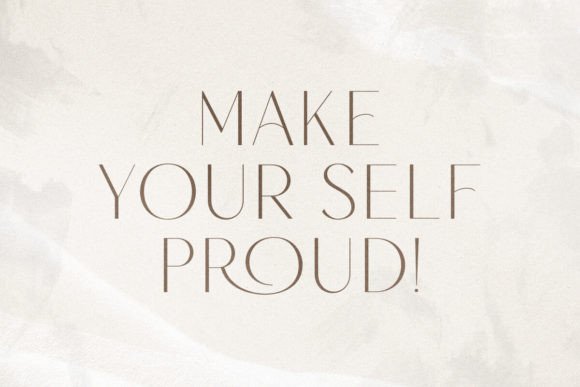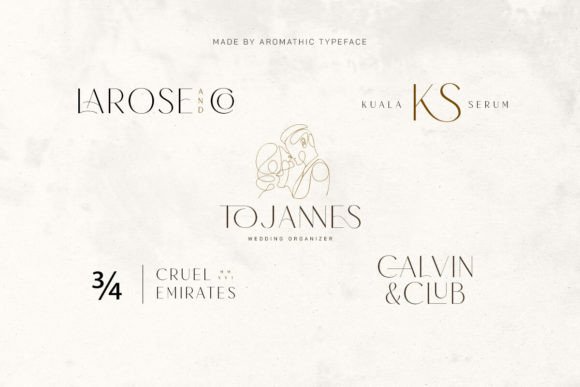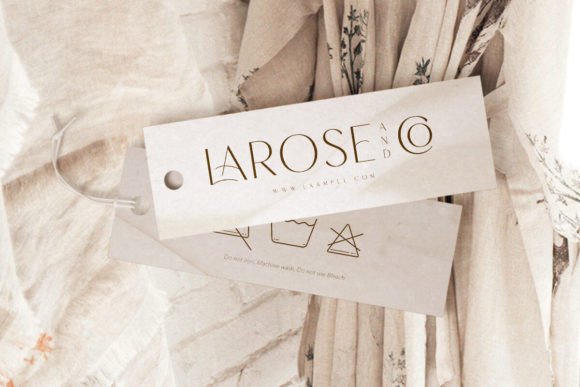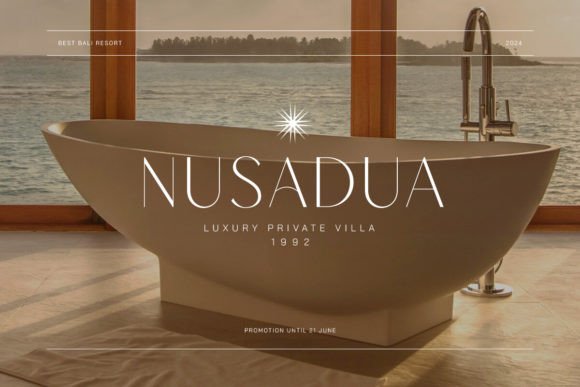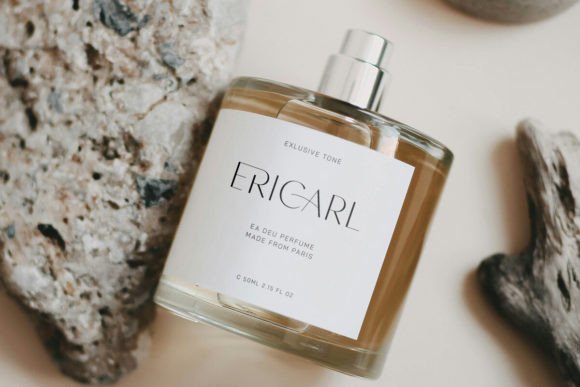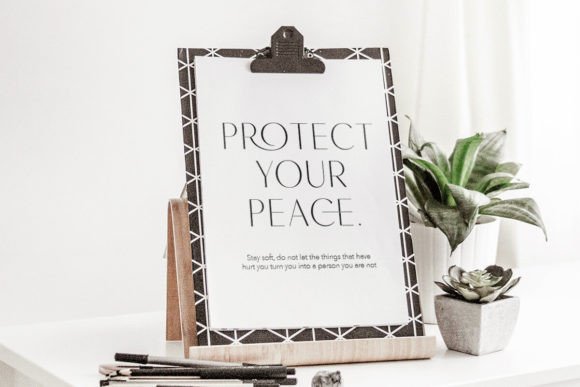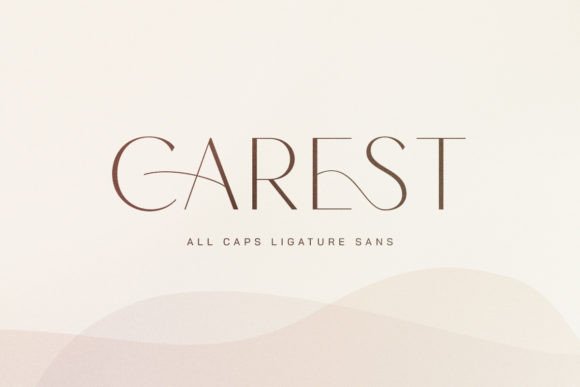
I still remember the countless hours I spent searching for the ideal font for a client’s branding project. The design brief was straightforward: create a modern, sleek look that would appeal to a young audience. I scoured font libraries, tried out numerous typefaces, but nothing seemed quite right. That was until I stumbled upon the Carest Font. Its clean lines, minimalist aesthetic, and versatility instantly won me over. In this article, I’ll share my experience with Carest, its features, and how to make the most of this beautiful sans-serif font.
Carest Font: A Modern Design Marvel
Carest is a sleek and modern sans-serif font that epitomizes contemporary design. Its refined simplicity and versatility make it perfect for cutting-edge branding, digital interfaces, and stylish editorial layouts. Whether you’re a designer, crafter, or creative hobbyist, Carest is an excellent addition to your typography arsenal.
What I Love About Carest ✨
- ✅ Clean and minimalist design that’s perfect for modern projects
- ✅ Extensive character set, including OpenType features and stylistic alternates
- ✅ Works well for both digital and print applications
- ⚠️ Limited italic styles, which might not be ideal for projects requiring a strong italic presence
- ⚠️ Some users might find the font too minimalist or lacking in personality
The Designer Behind Carest: A Backstory
Carest was designed by a team of typographers who aimed to create a modern sans-serif font that would meet the demands of contemporary design. Inspired by the clean lines and minimalist aesthetic of urban landscapes, Carest was crafted to be both elegant and versatile. The design team poured their hearts into refining every detail, from the font’s geometric structure to its extensive character set.
Q: What makes Carest suitable for digital interfaces?
A: Carest’s clean design, legibility, and extensive character set make it an excellent choice for digital interfaces, such as websites, mobile apps, and software.
Q: Can I use Carest for print projects?
A: Absolutely! Carest’s versatility makes it suitable for a wide range of print projects, including magazines, brochures, and posters.
Q: Does Carest support OpenType features?
A: Yes, Carest supports OpenType features, including ligatures, stylistic alternates, and more.